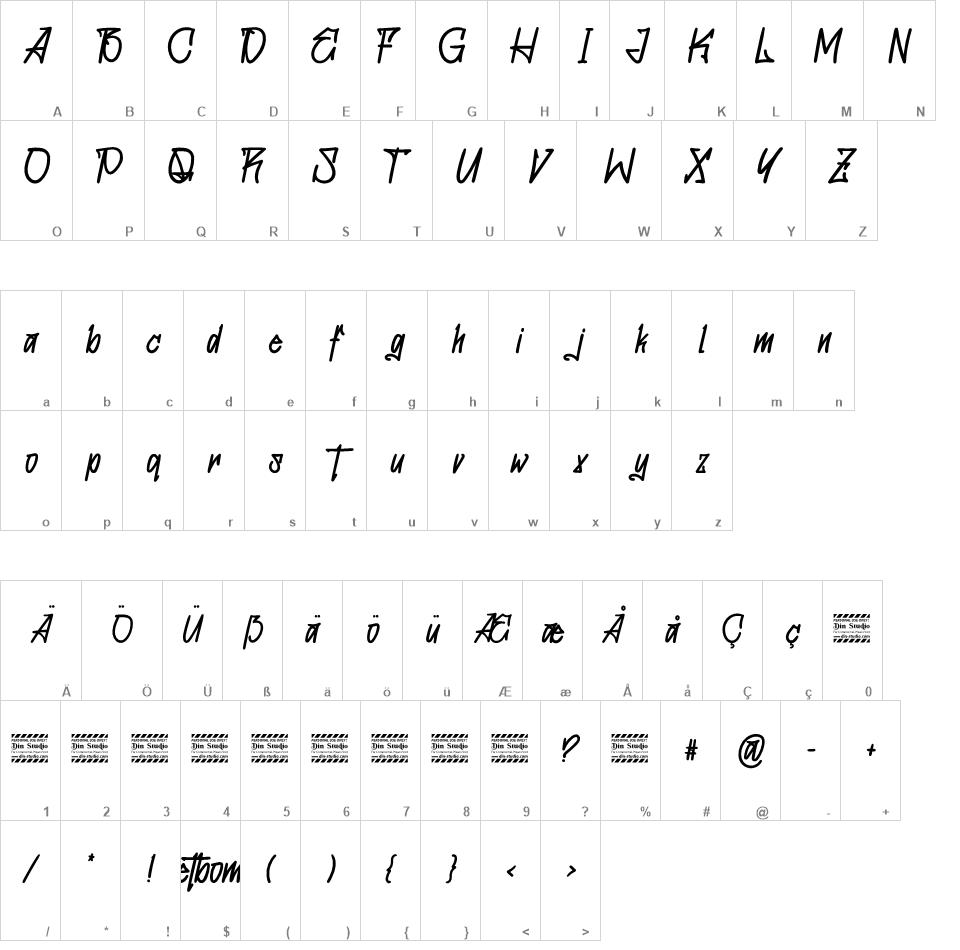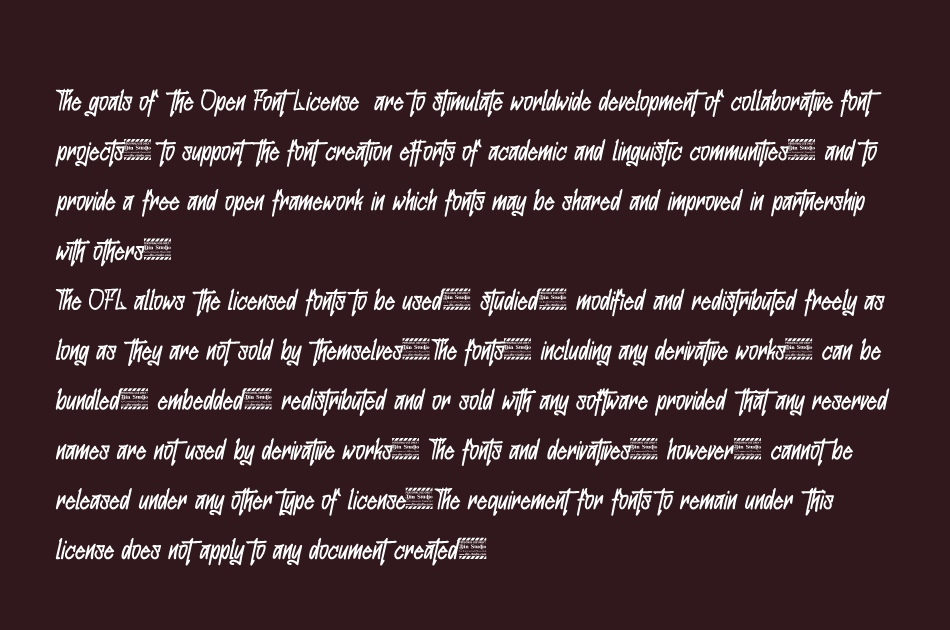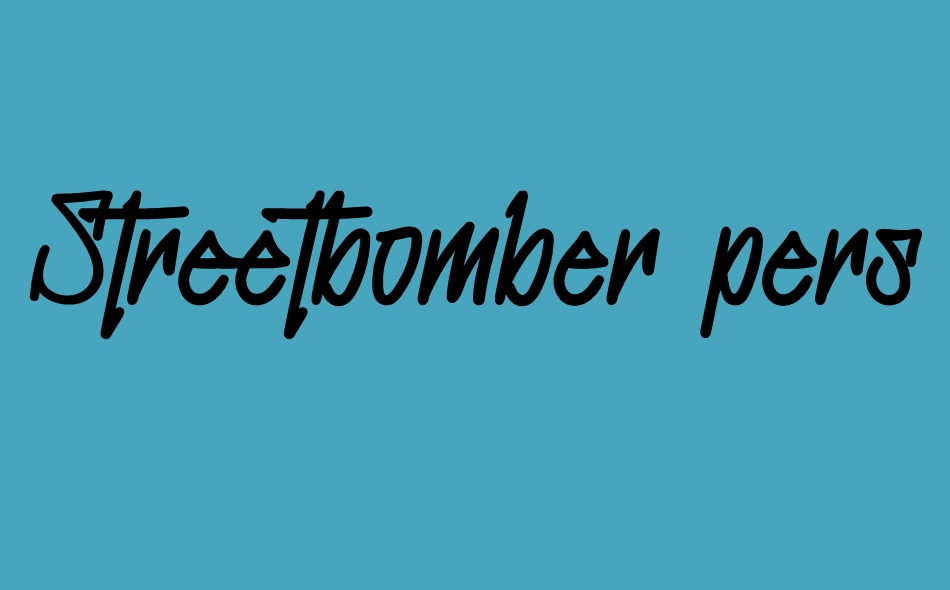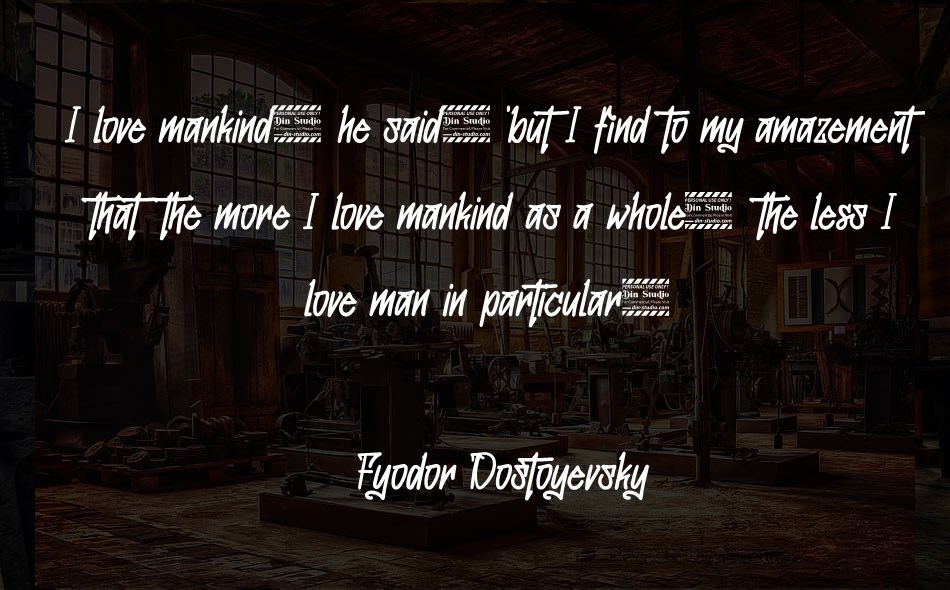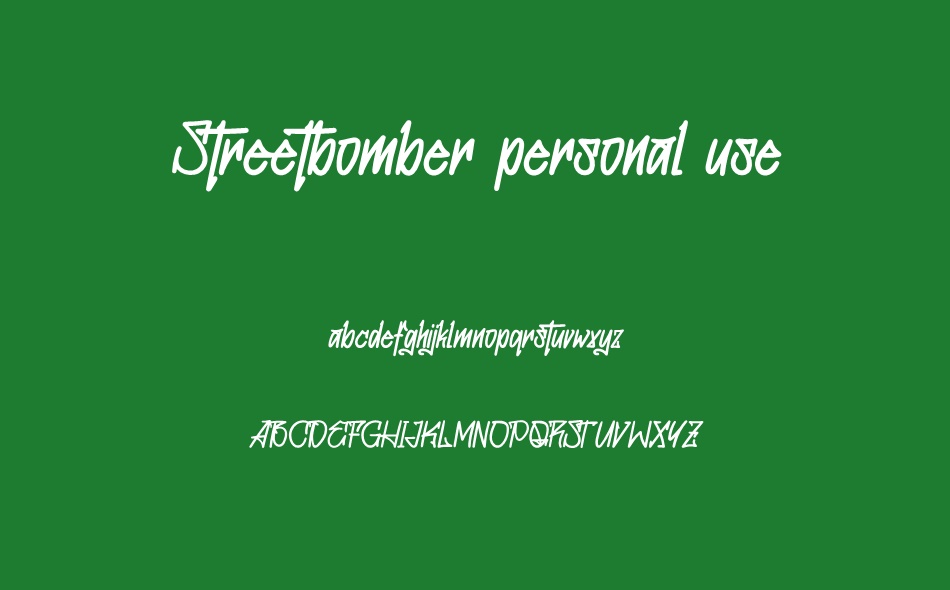
Streetbomber font
Streetbomber is an urban font that echoes the classic tag lettering style. Use this cool and artistic graffiti font to breathe a street life vibe into your projects. This font is perfect for logos, printed quotes, cards, packaging,
website or social media branding, and many more!